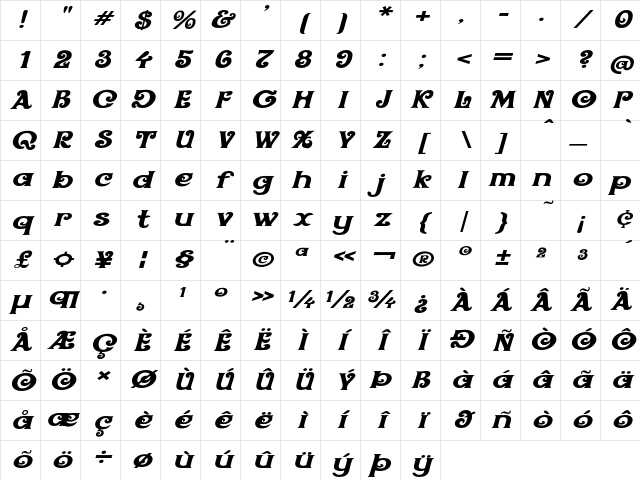
Complete Circus Folly Expanded Italic glyph index. Displaying only characters natively supported by Circus Folly Expanded Italic font.
Circus Folly is a composed and adaptable typeface that performs quietly and consistently across a wide range of design contexts. The slanted form adds forward momentum and visual energy.
Pro Tip: Use Circus Folly for emphasis, pull quotes, and subheadings where its slanted energy can add rhythm to the layout.